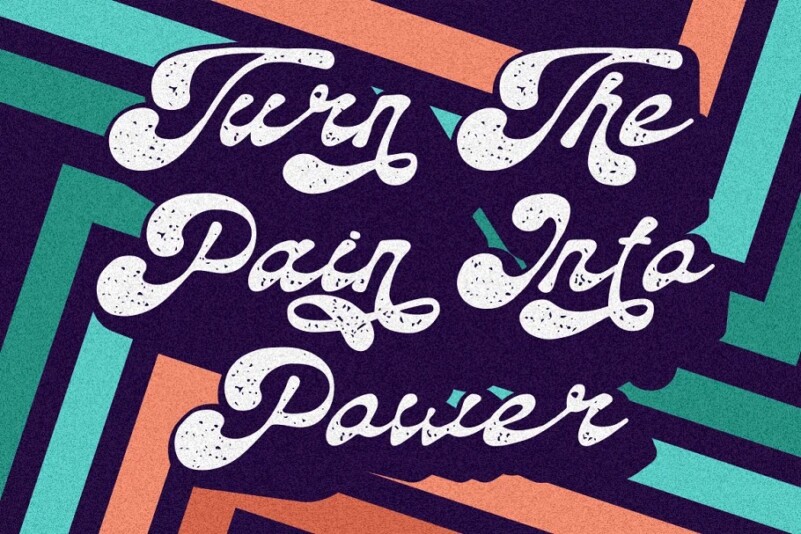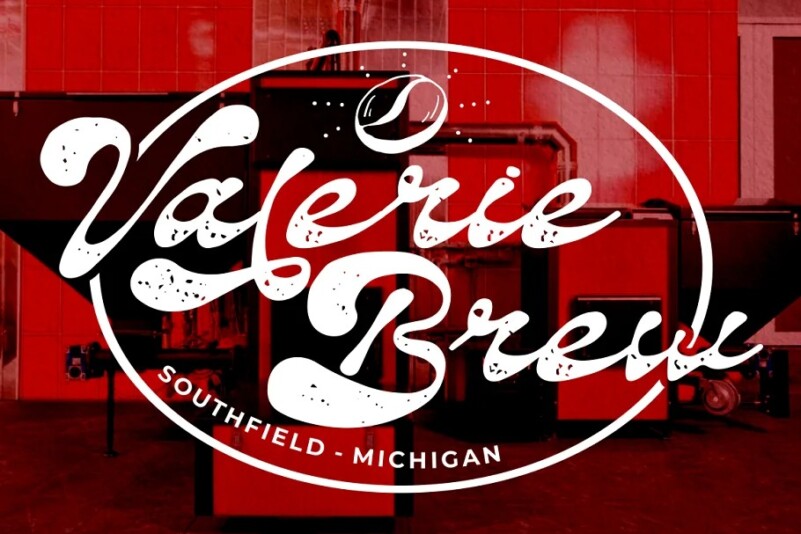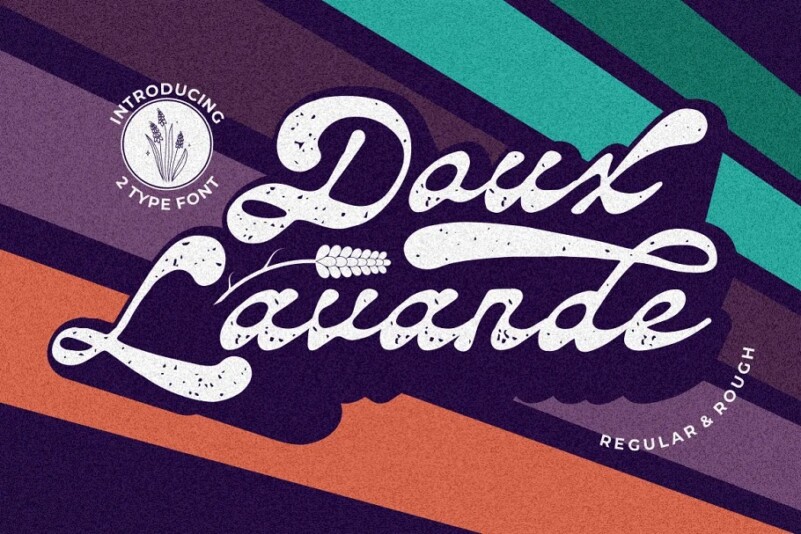
Daux Lavande Font
Daux Lavande Font is a captivating vintage script font from PutraCetol Studio that brings depth and dimension to your designs with its extrude version. This font is perfect for creating a nostalgic and eye-catching visual impact in various design projects. Its unique character and vintage charm make it an ideal choice for food and beverage branding, stickers, posters, and other businesses seeking a touch of vintage flair.